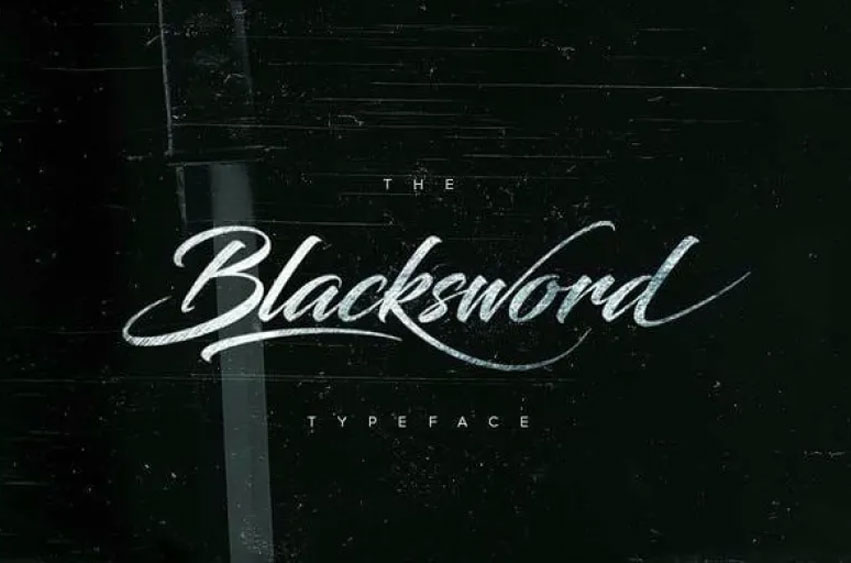
Blacksword Font
Blacksword Font developed by Youssef Habchi, an elegant and luxurious Calligraphy font that can be used for private purposes, free of charge and download.
In the free version, the numbers are capital and are also the double of the unique characters numbers.